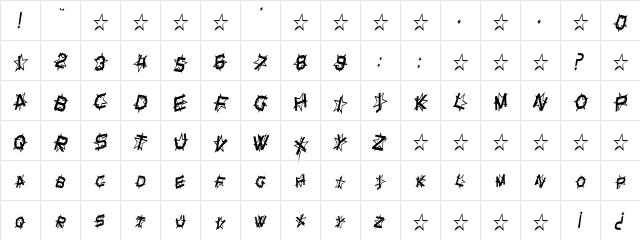
Star Dust Condensed Italic
Design Context for Star Dust Condensed Typeface
Star Dust Condensed is a composed and adaptable typeface that performs quietly and consistently across a wide range of design contexts. The dynamic lean of this cut emphasises speed and emphasis in any layout. The condensed width makes it efficient for tight spaces without sacrificing legibility.
Pro Tip: Use Star Dust Condensed for emphasis, pull quotes, and subheadings where its slanted energy can add rhythm to the layout.